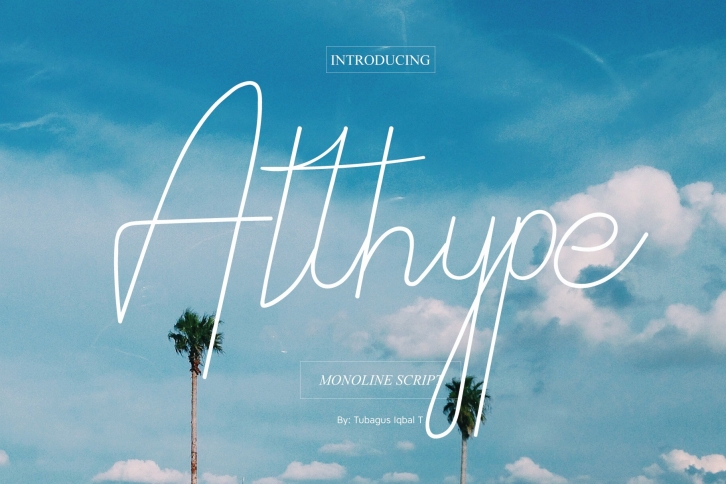
4 Unique Signature & handdrawn with monoline styles collection is a trendy and unique font with an authentic style. It was designed by TypoBureauStudio and it's a great choice for creative people who need such a font. It was released on March 9, 2018 and the file size is 12.95 MB. 4 Unique Signature & handdrawn with monoline styles collection will add an organic vibe to any design idea!